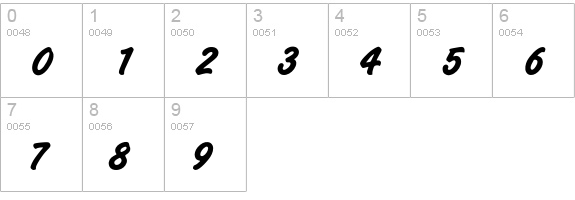
BellamyBold Font Details
BellamyBold is a versatile and elegant typeface that exudes a sense of sophistication and modernity. With its clean lines and bold strokes, this font is perfect for making a statement in your designs. Whether you're creating a logo, poster, or website, BellamyBold will add a touch of class and professionalism. The best part? BellamyBold is completely free to download at FontsMarket.com. This means you can elevate your projects without breaking the bank. Don't miss out on this opportunity to enhance your designs with this stunning font. Download BellamyBold today and let your creativity shine!